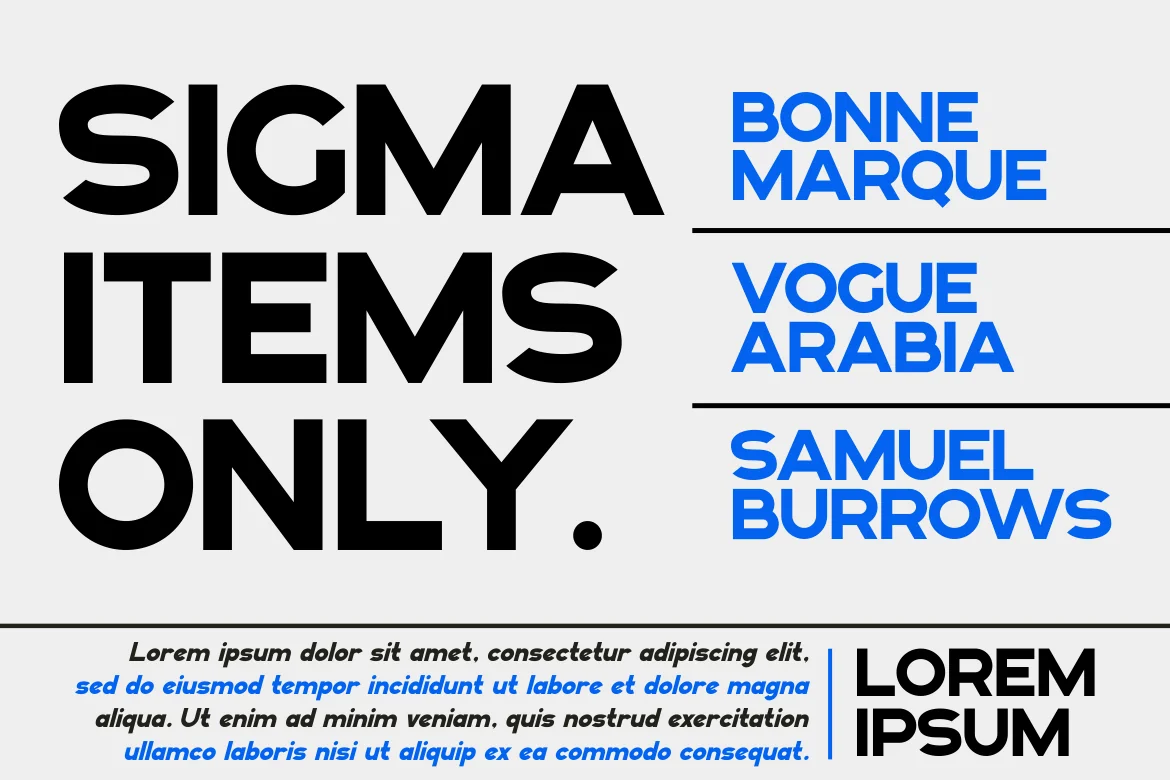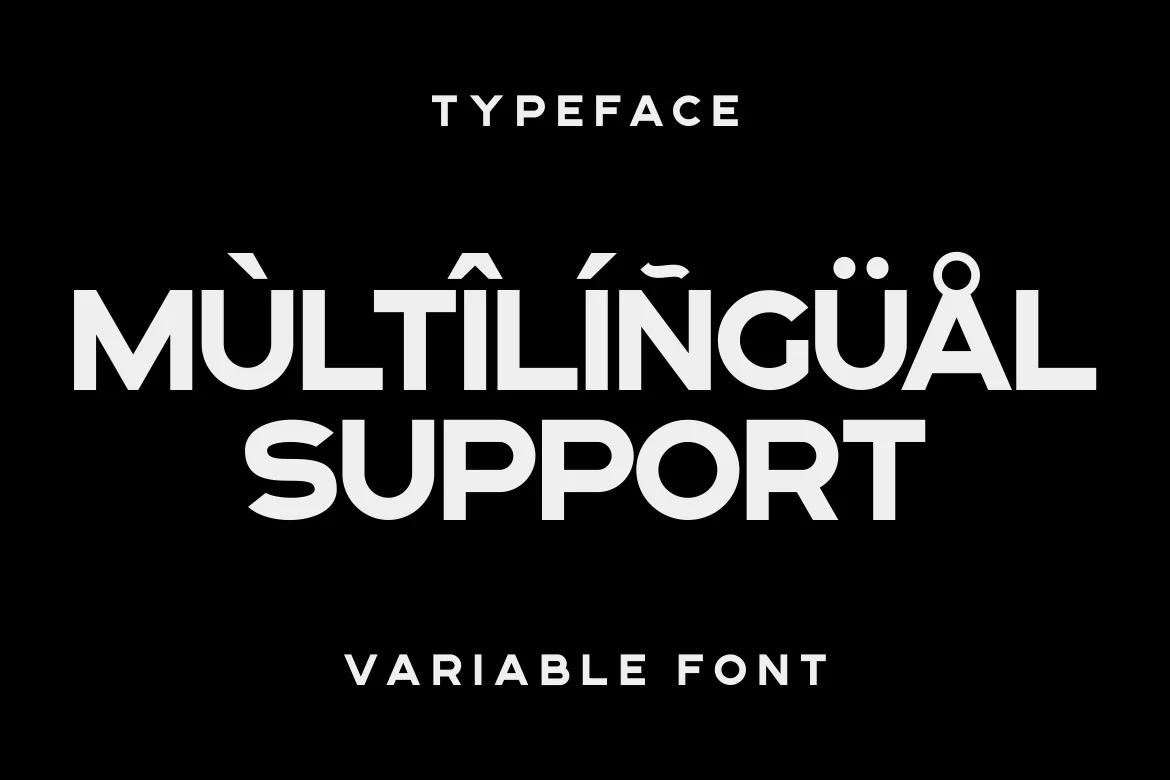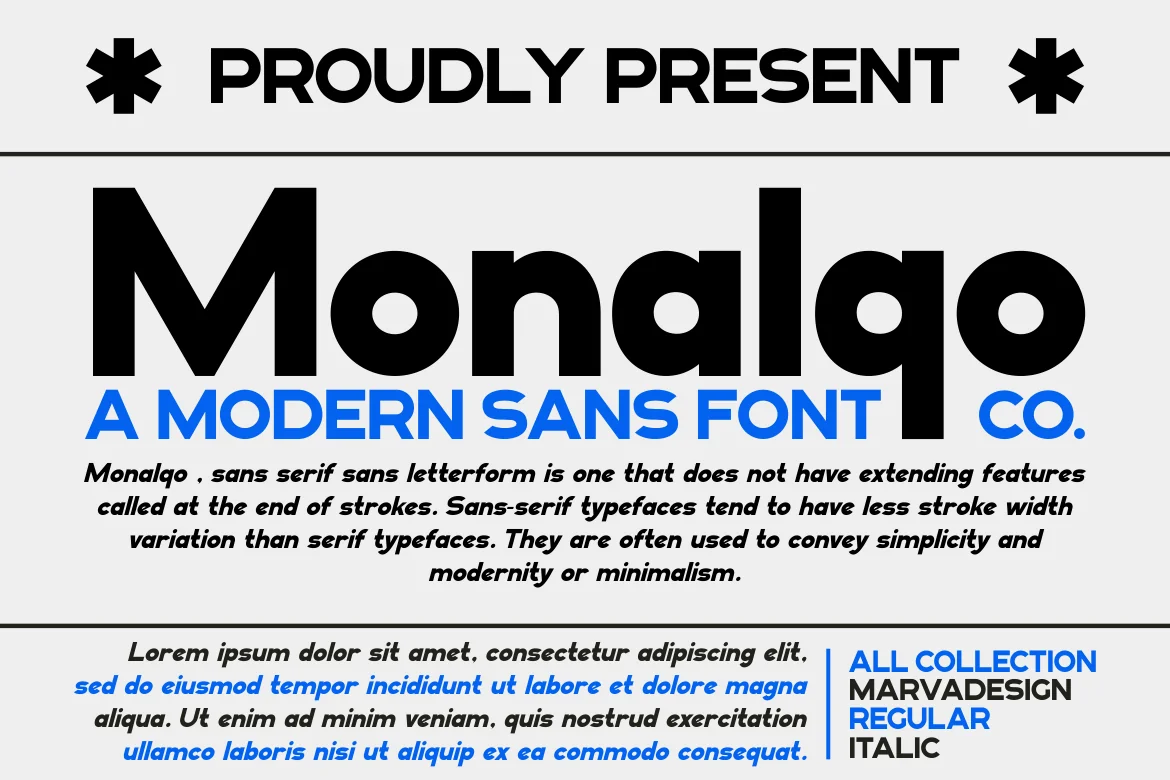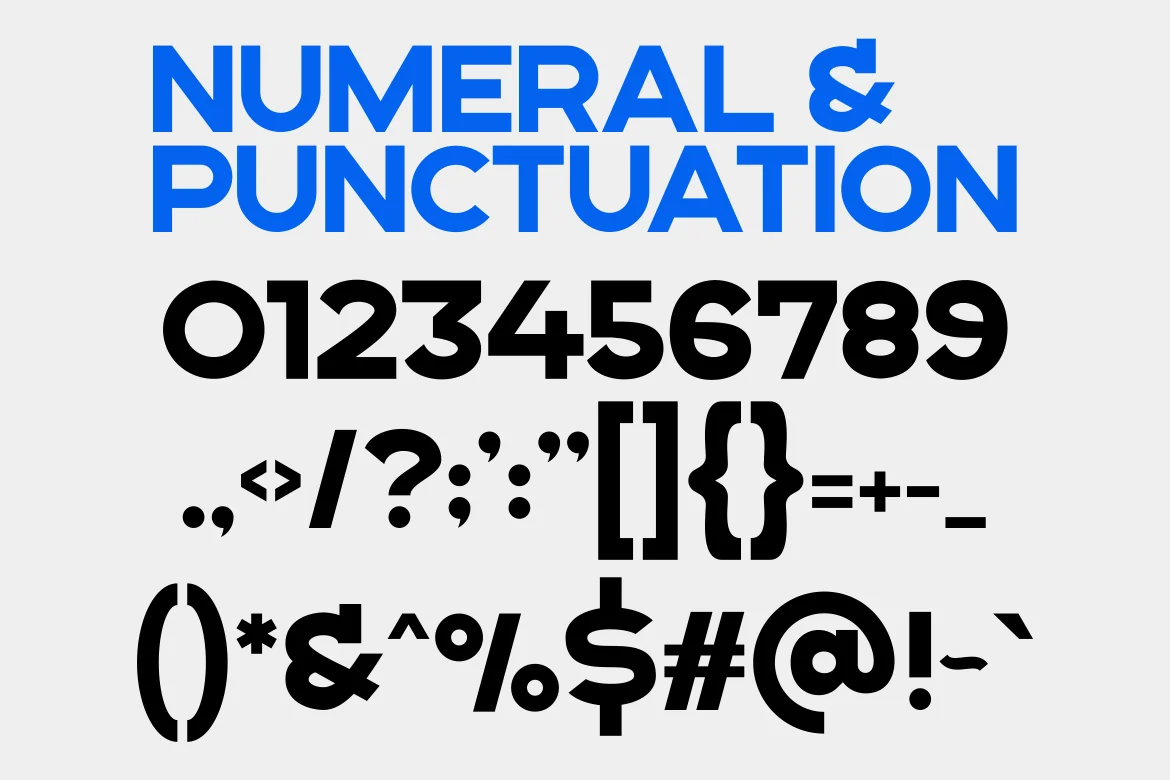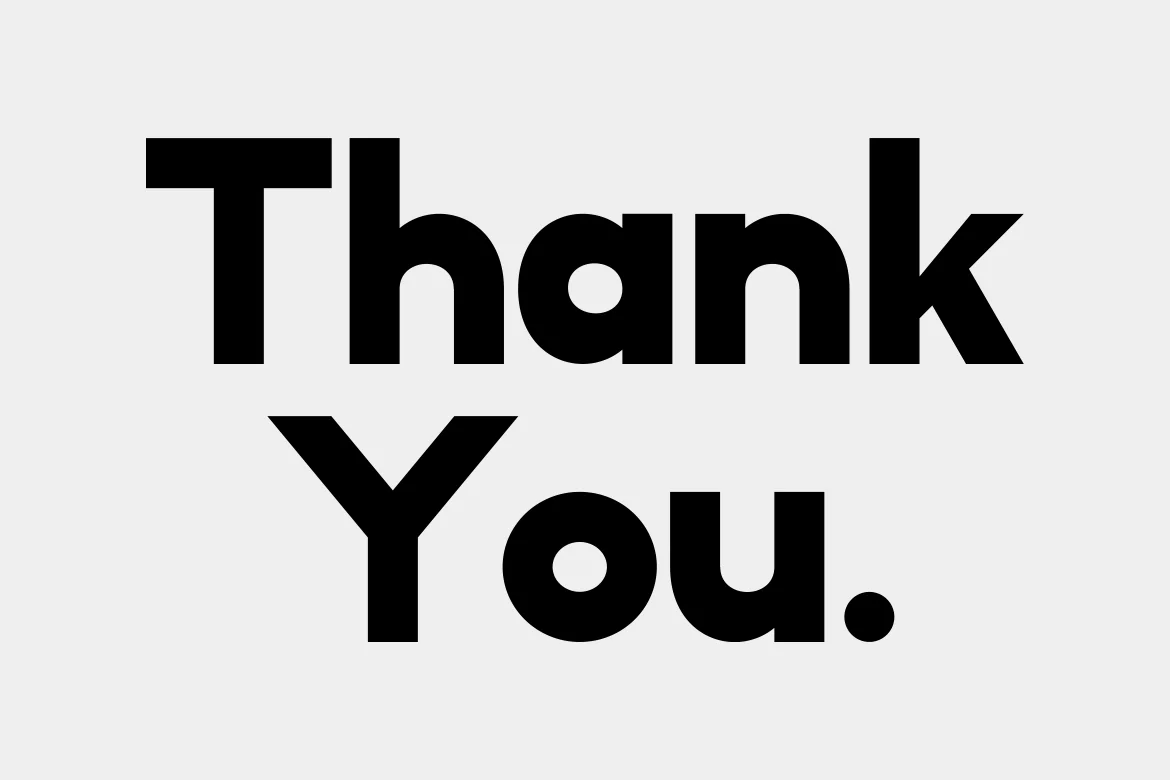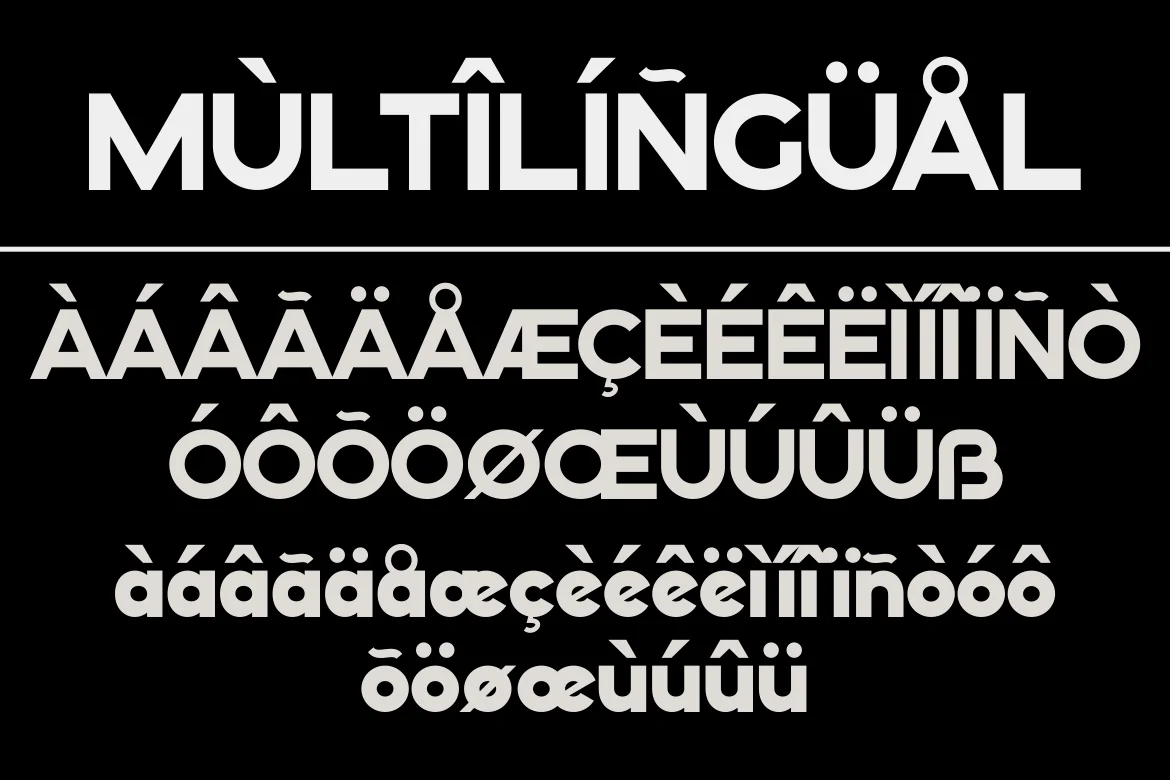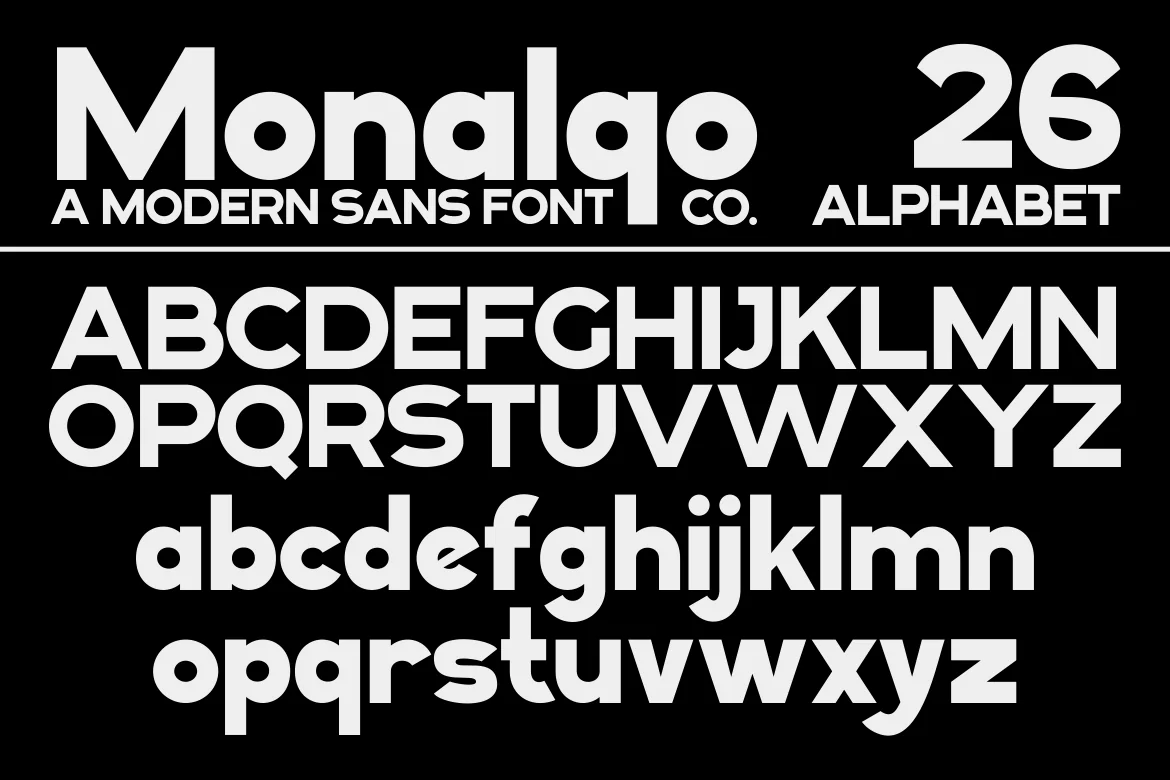
Monalqo – A Modern Sans Serif Font
Introducing our new product Monalqo Font – Modern Font
Monalqo Font** – Modern Font is a bold and authentic display font. The font is suitable for any branding project like logo,Template Design, Product and many more. outstanding in a wide range of contexts.